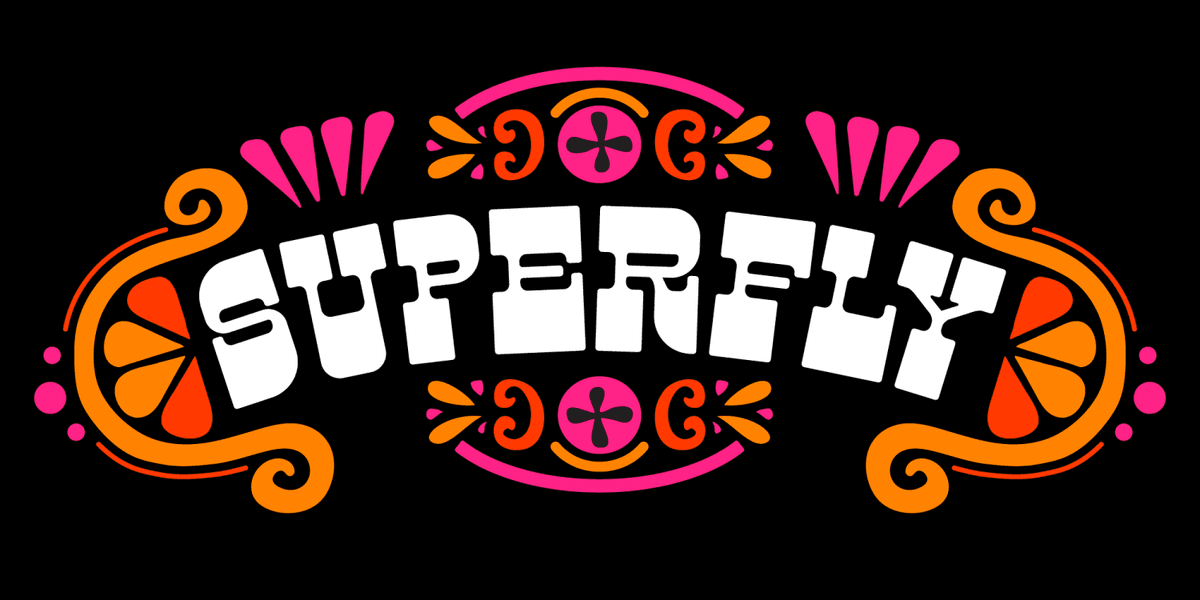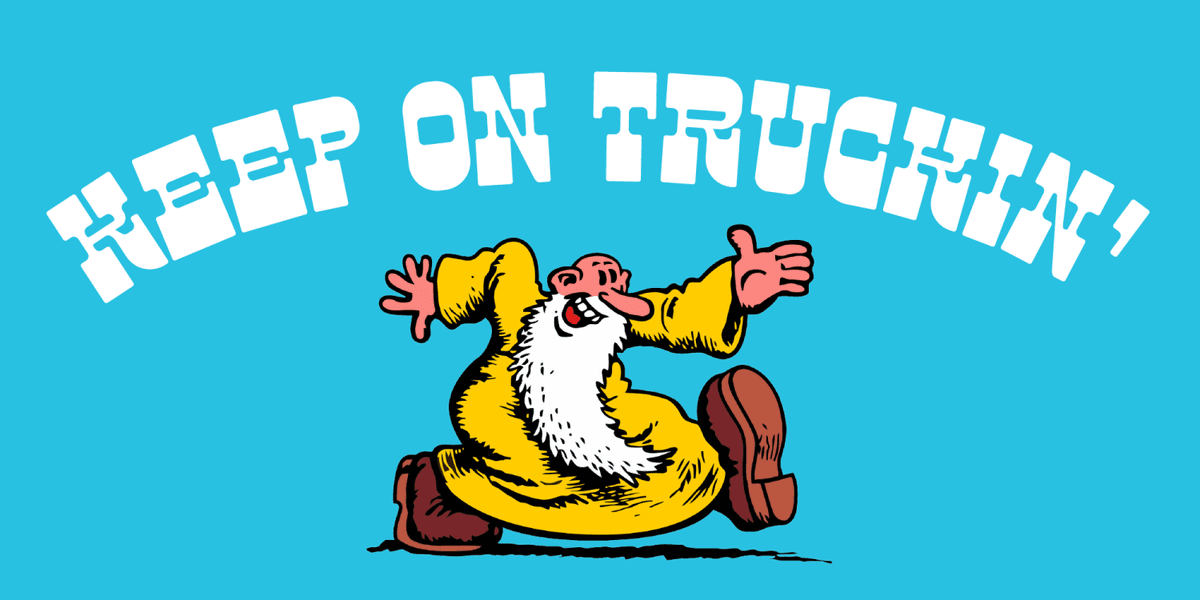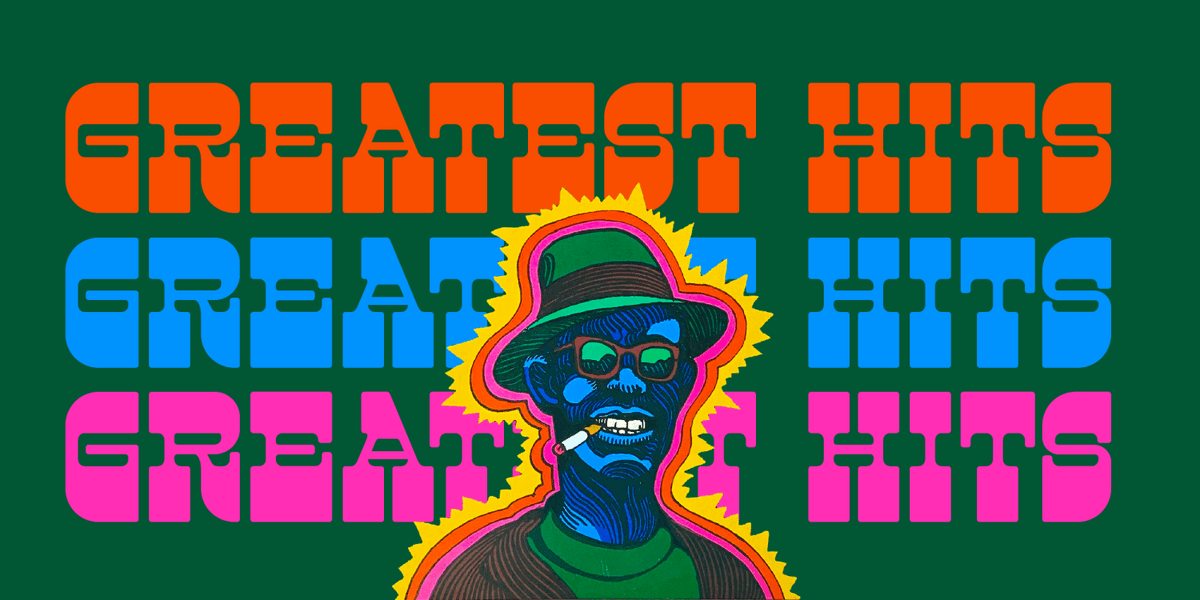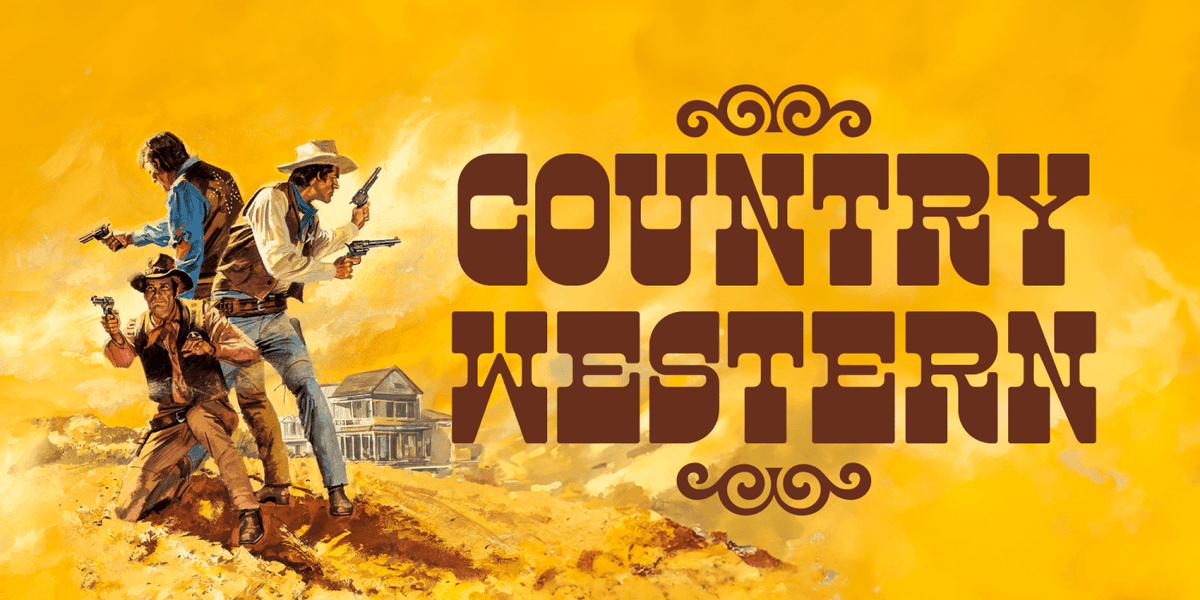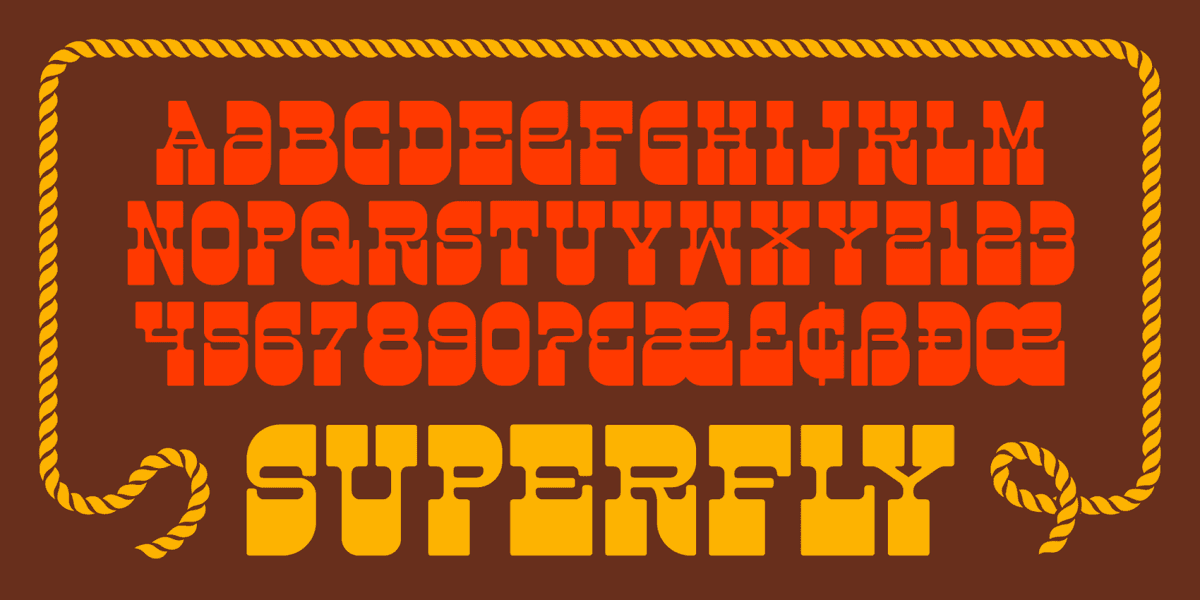
If anyone has ever sat around and wondered, "Can someone start off making a western font and end up with a funky 70's font?", I can answer that question for them. The answer is yes. Take Superfly for example. Those big ass serifs might make you go: "Western", but believe you me, it ain't.